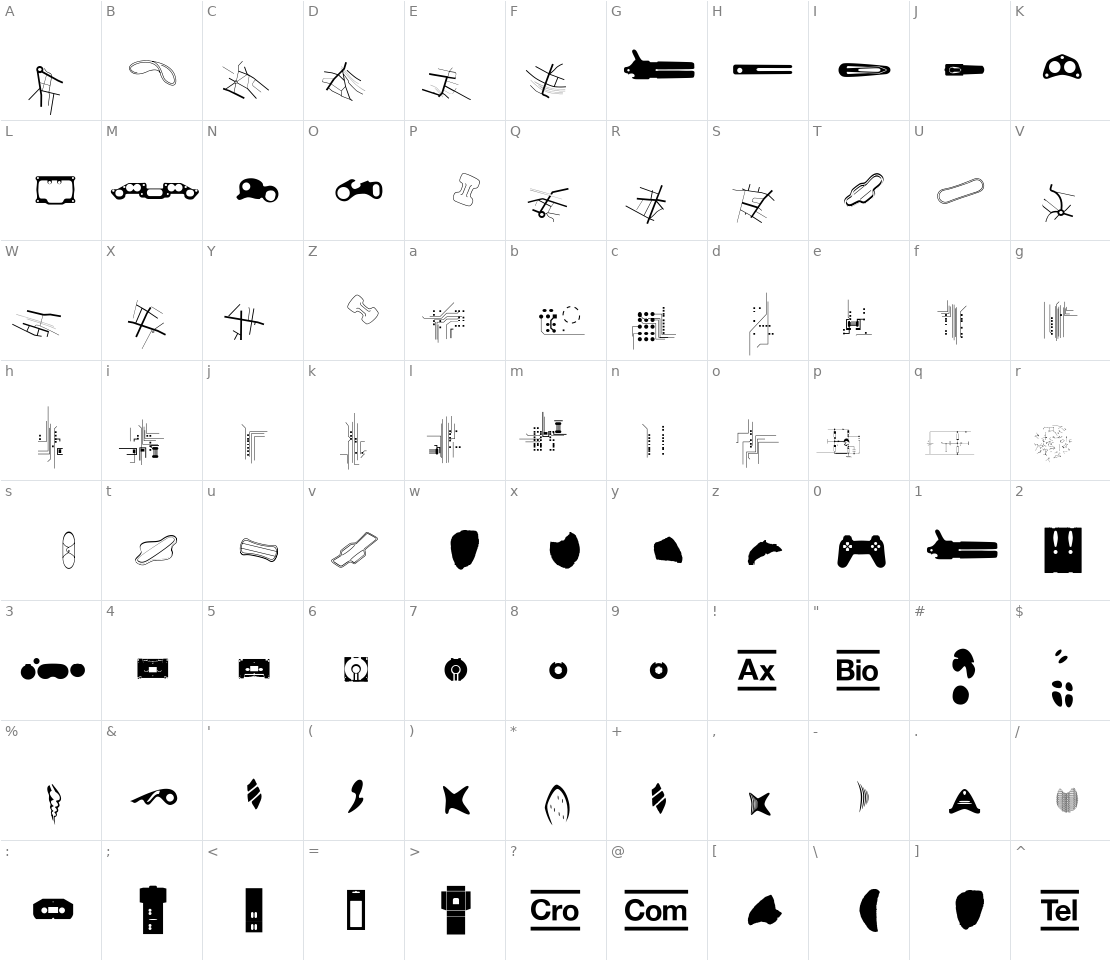
CroCro
by CroCroTraUmAx Project
CroCro is an experimental ornament font from the CroCroTraUmAx Project, built from abstract geometric lines and chaotic compositions rather than traditional letterforms. The designs feel restless and artistic, more like generative art fragments than typographic characters. Useful as decorative elements, pattern building blocks, or visual texture in layouts where conventional ornamentation would feel too tame.